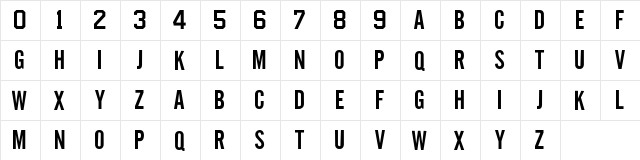
NHL Tampa Bay Regular Font Preview
NHL Tampa Bay Regular
Design Context for NHL Tampa Bay Typeface
NHL Tampa Bay is a composed and adaptable typeface that performs quietly and consistently across a wide range of design contexts.